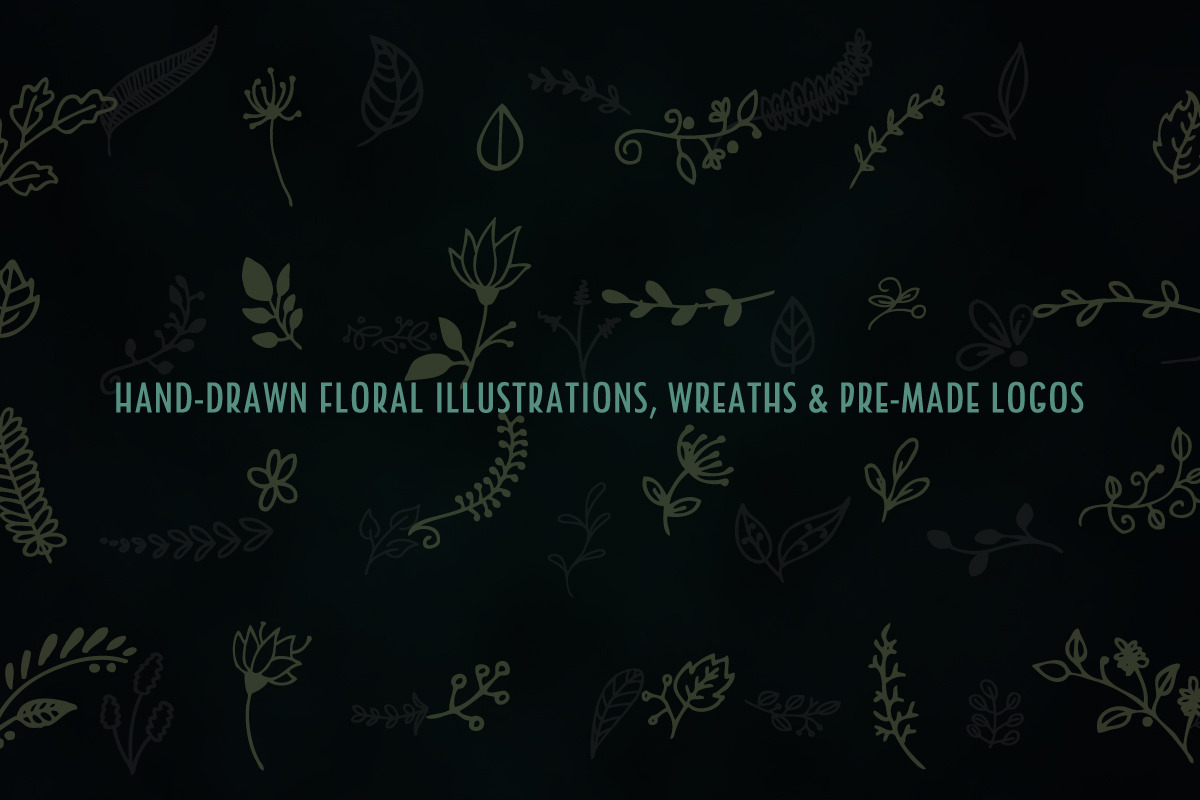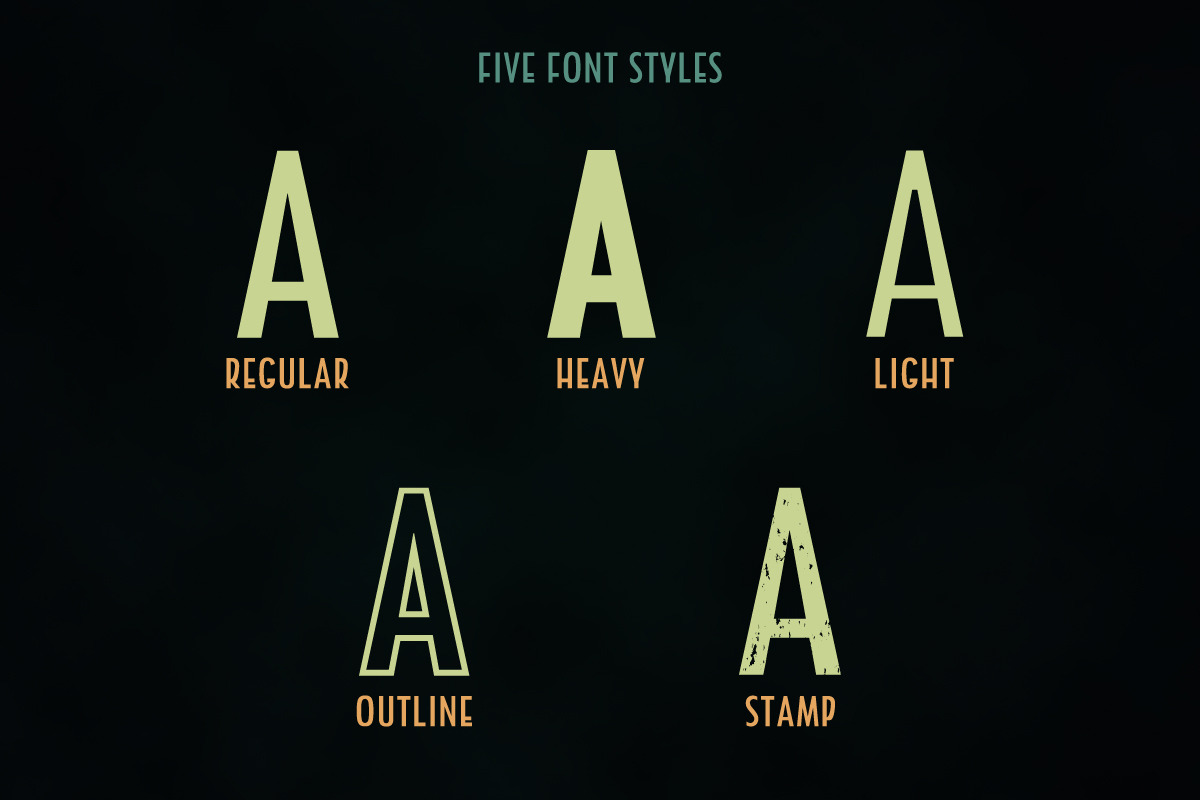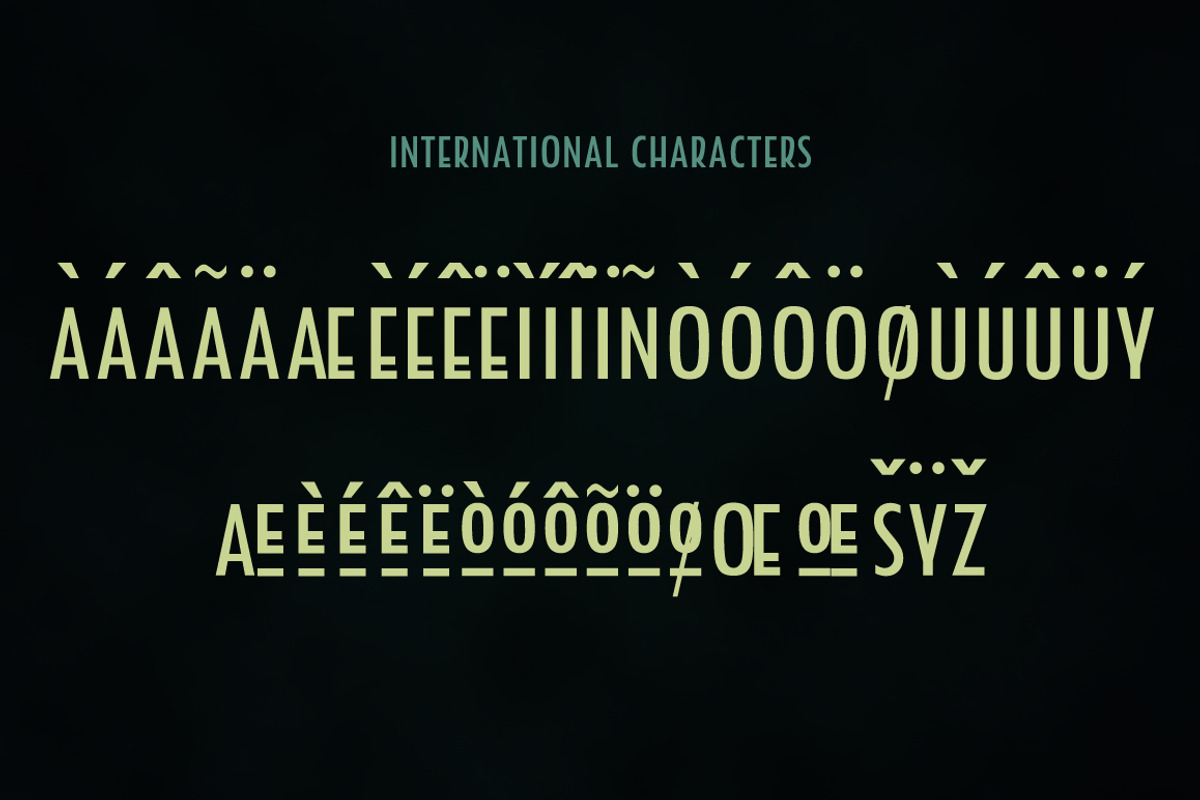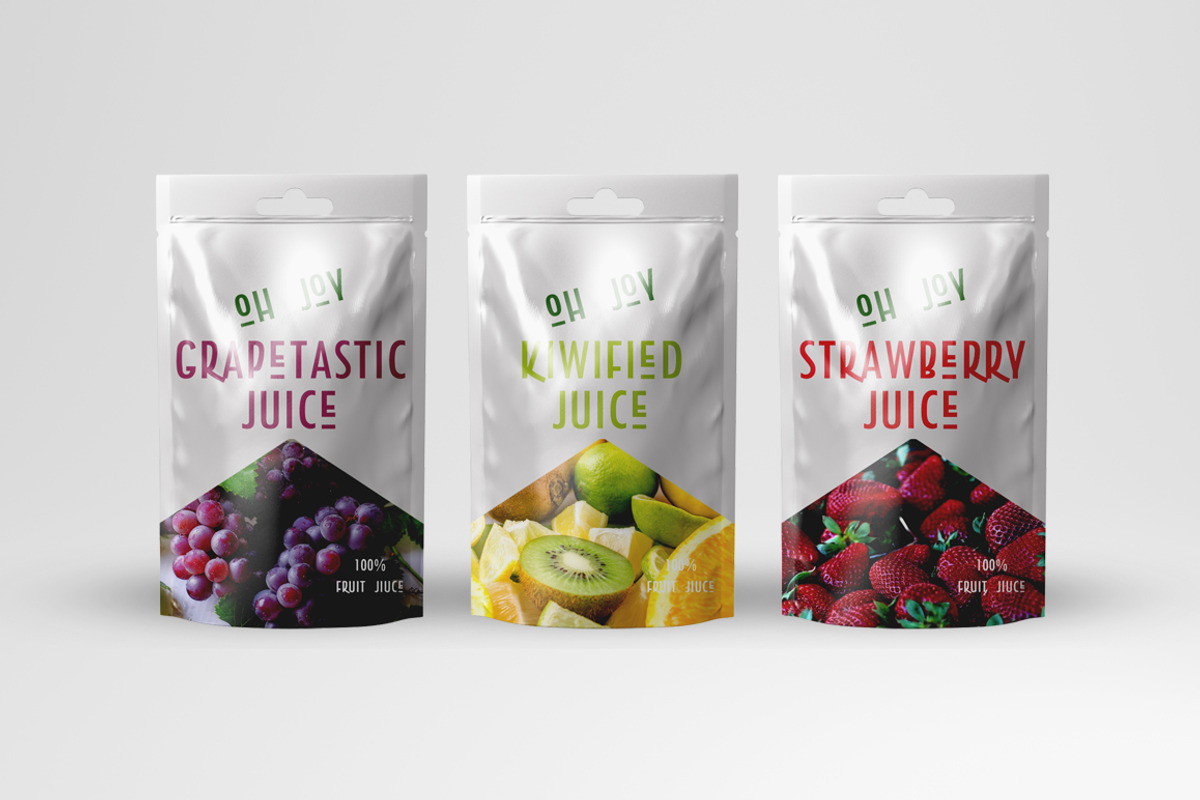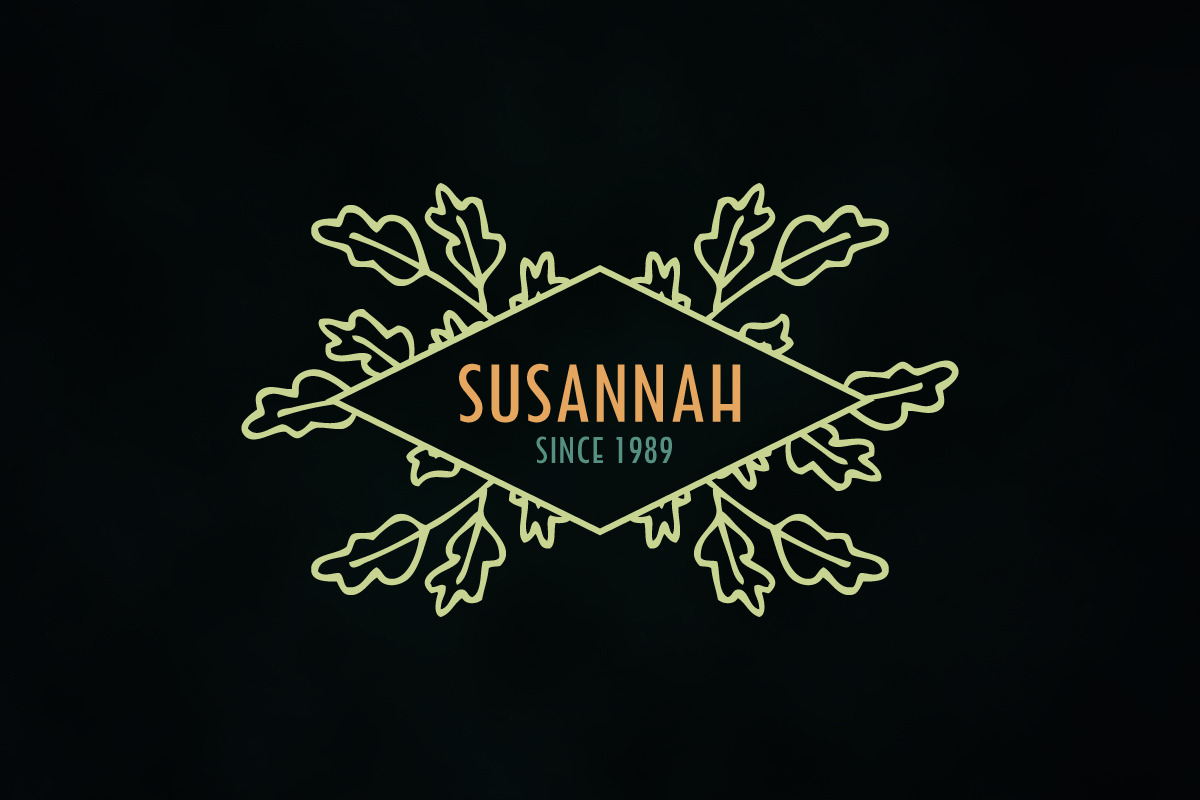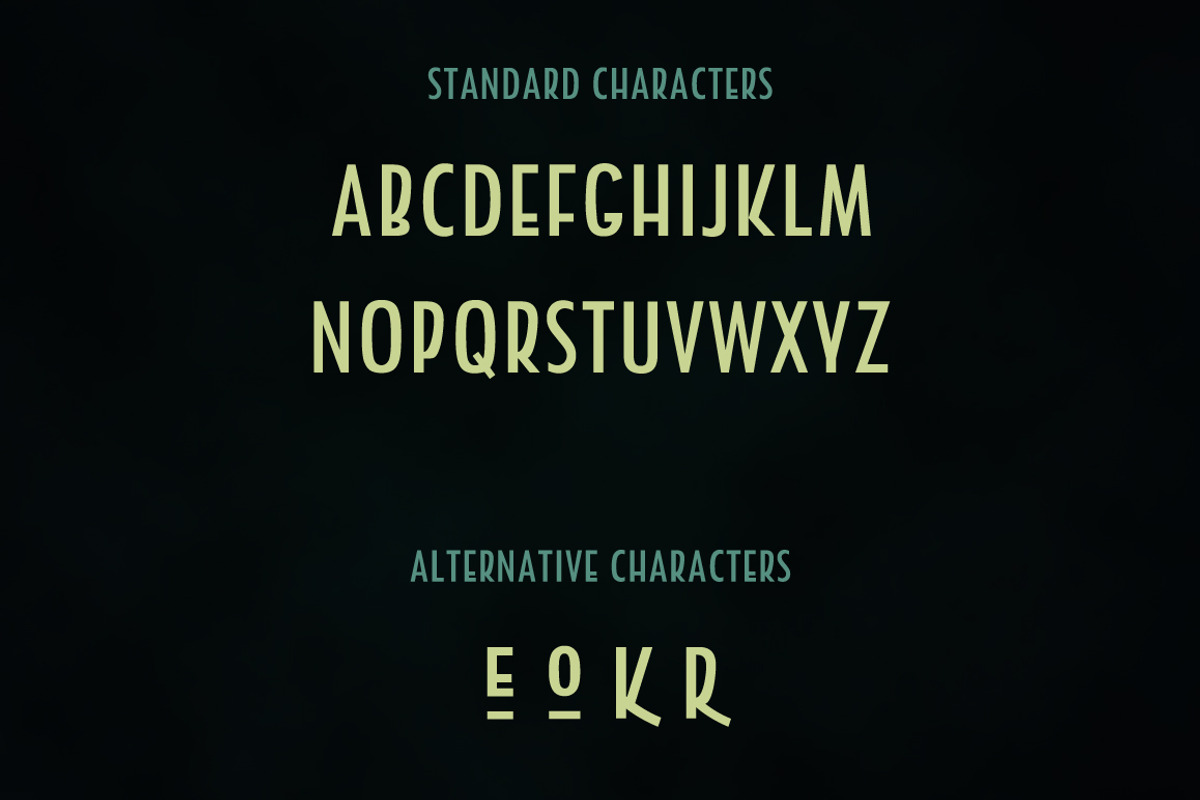
Holder Sans Typeface + Extras
Holder is a fresh sans-serif font family, inspired by covers from old books. It is perfect when used for displaying, website, branding, logos, magazines, posters, and films. There are five fonts included in both TTF and OTF formats: Regular, Light Heavy, Outline and Stamp. Holder also has multilingual support.
NOTE: This is an all caps font. To access the alternative characters, you can use the lower case letters for E, K, O, and R.
- Holder also has multilingual support.
- To access the alternative characters, you can use the lower case letters for E, K, O, and R.